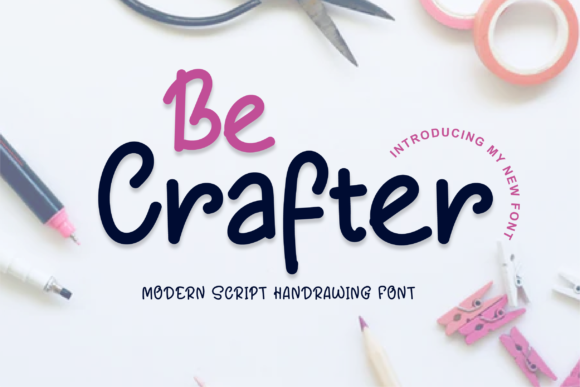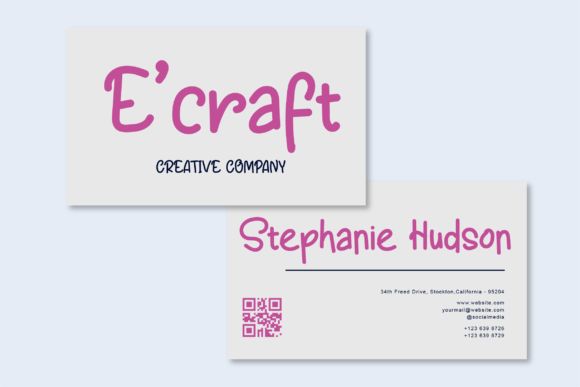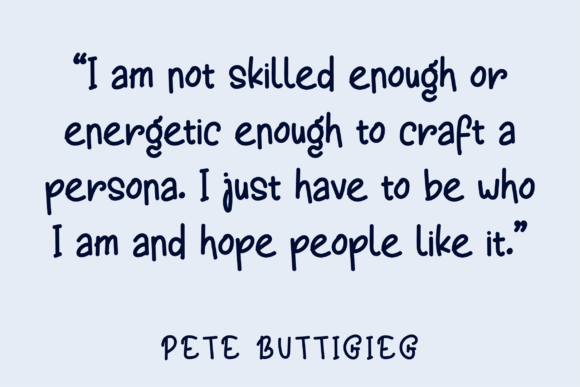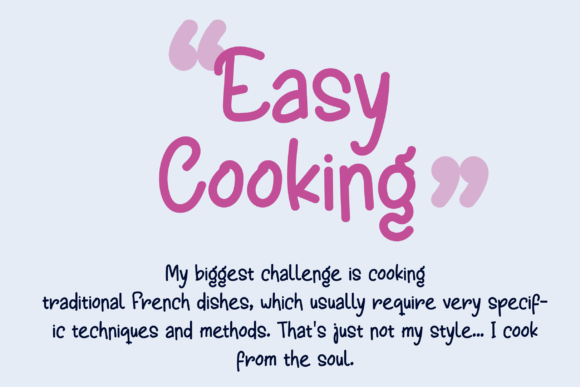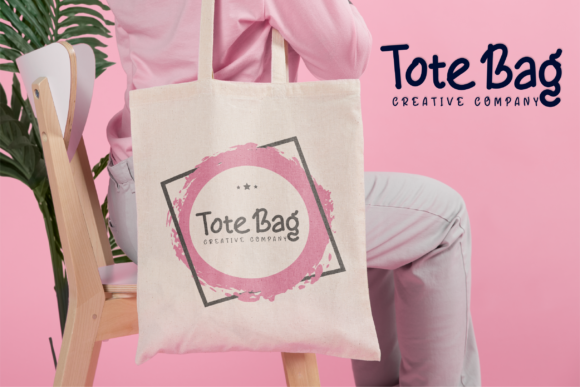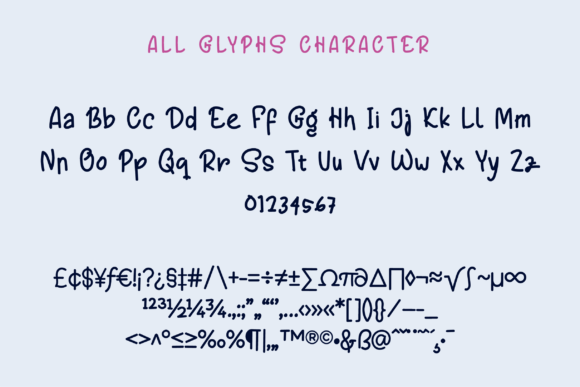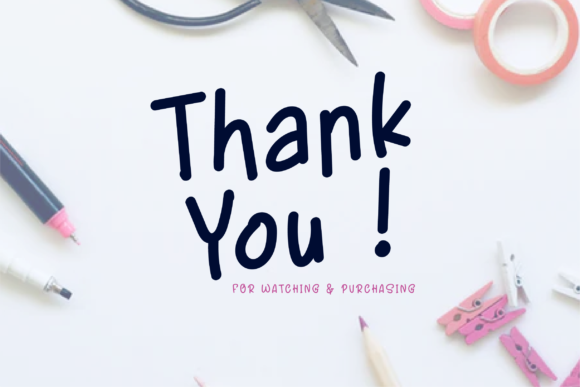
Be Crafter Font
About Be Crafter Font
Be Crafter is a sweet and flowing handwritten font, perfect for your favorite projects. Fall in love with its incredibly distinct and timeless style and use it to create spectacular designs!